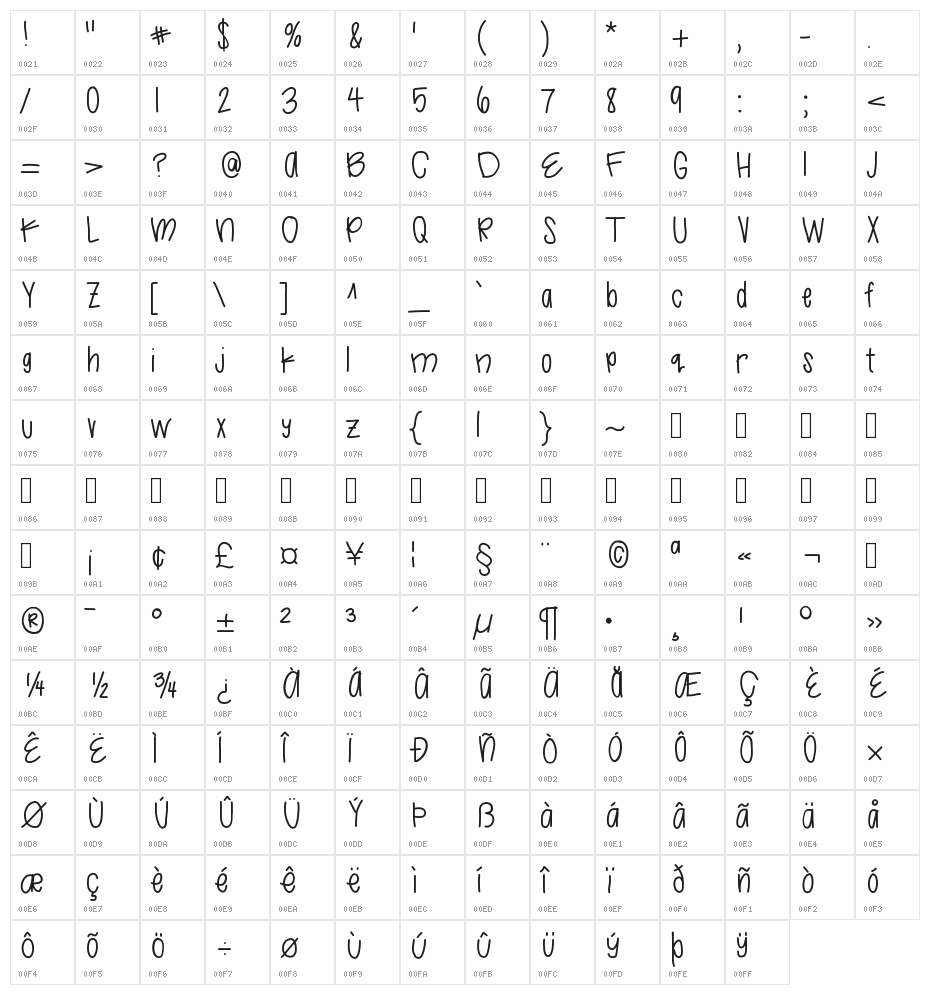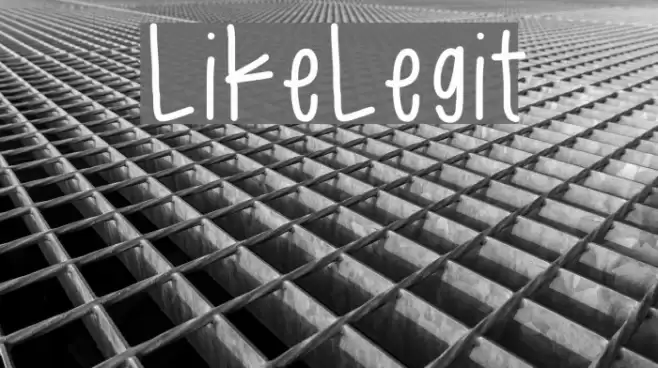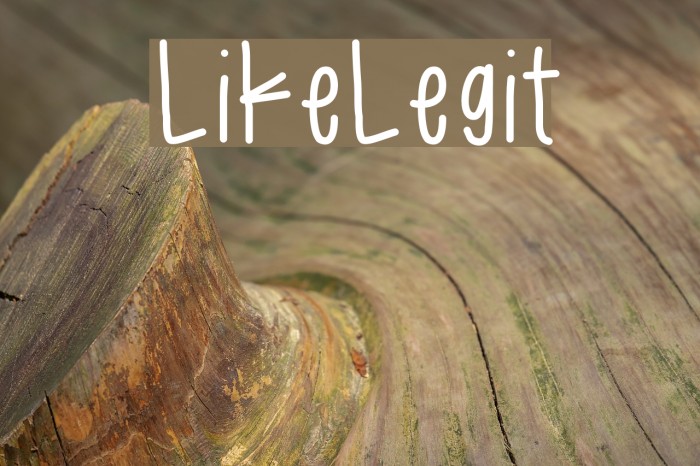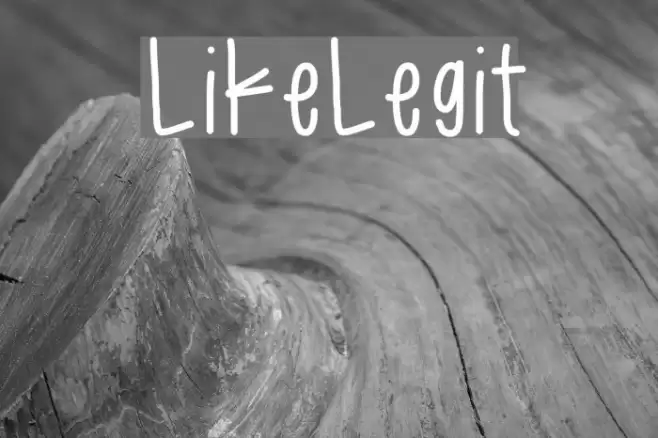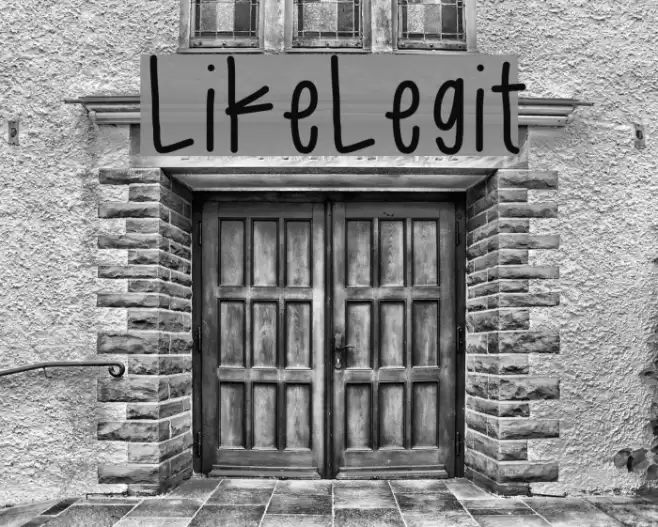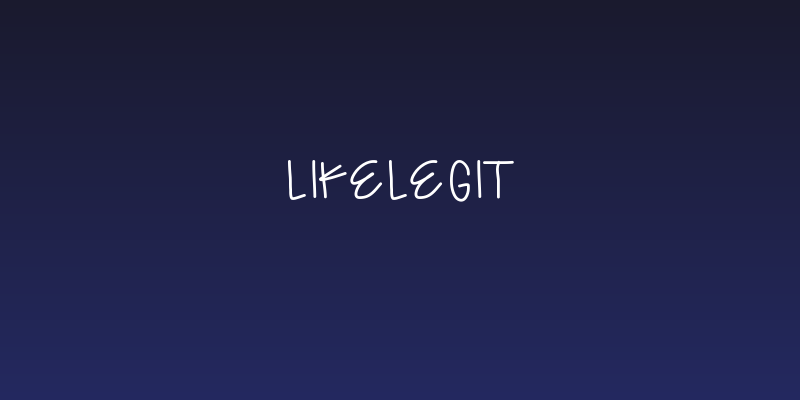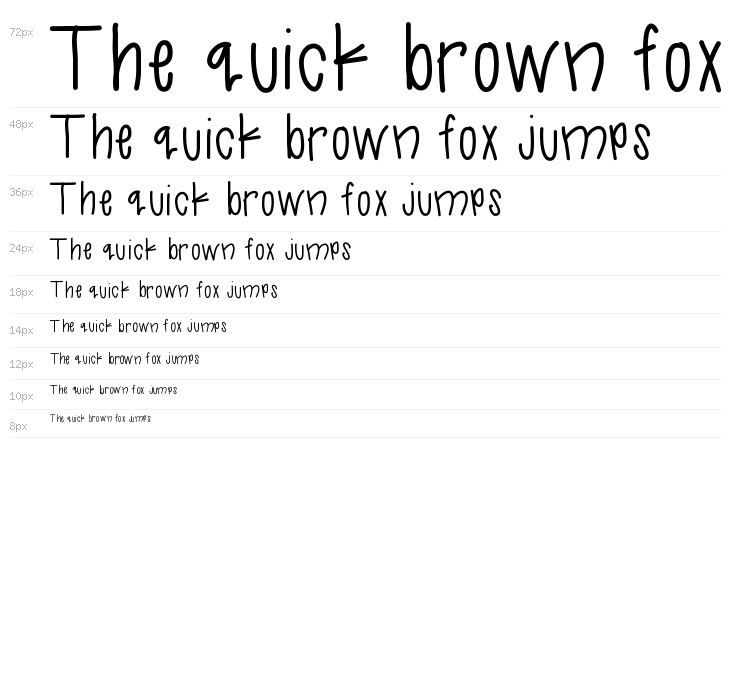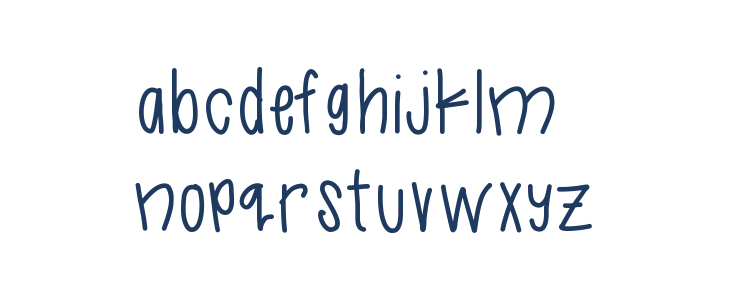
LikeLegit Font
LikeLegit Description
This playful and casual handwritten font exudes a friendly and approachable vibe. The characters are slightly irregular, adding a personal touch that mimics natural handwriting. The strokes are smooth and rounded, with a consistent thickness that provides a harmonious look. The uppercase and lowercase letters maintain a cohesive style, while the numerals and special characters blend seamlessly into the overall design. This font is perfect for projects that require a personal, informal, and engaging appearance.
| Proposed Projects | Ideal for greeting cards, personal invitations, children's books, and informal branding. |